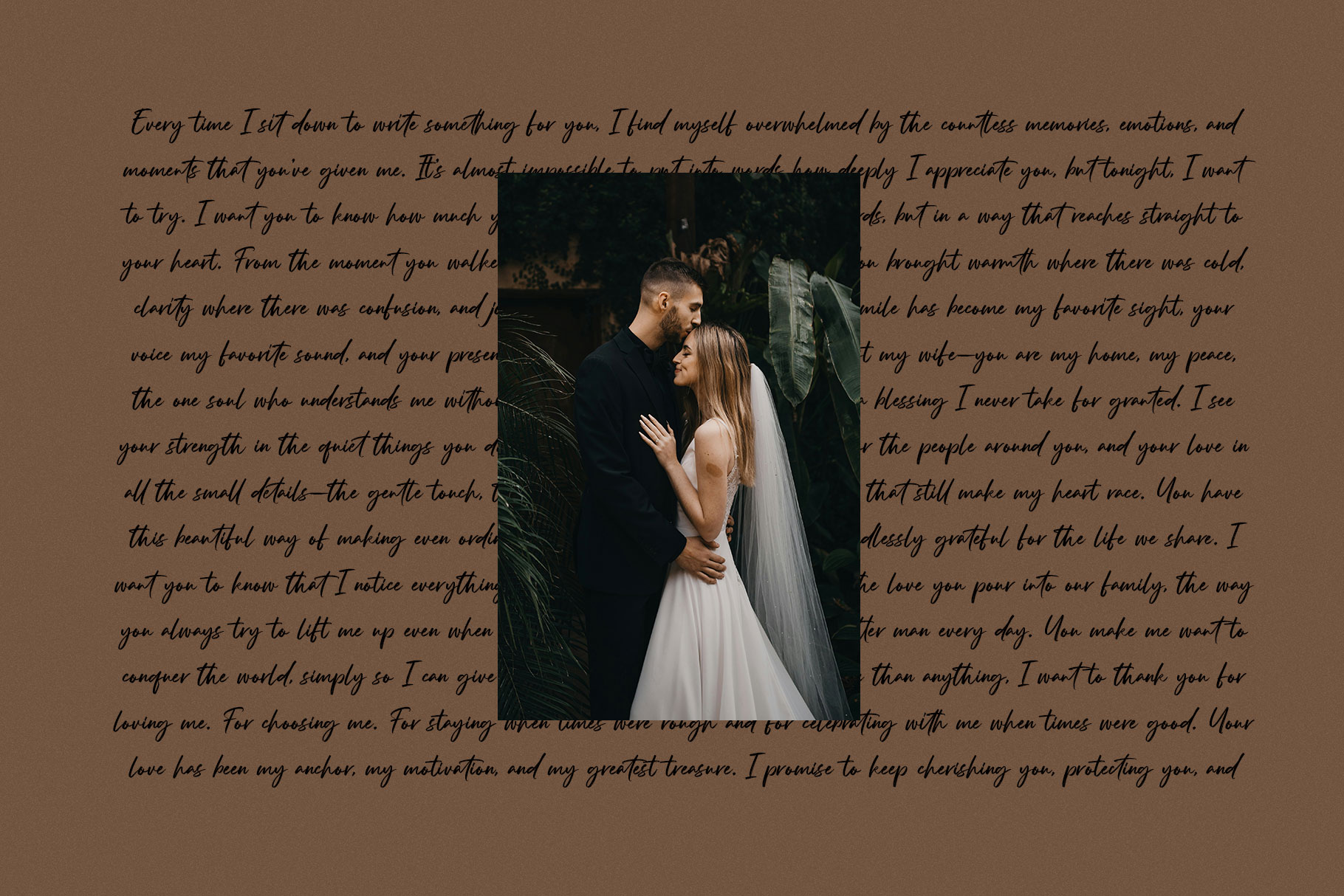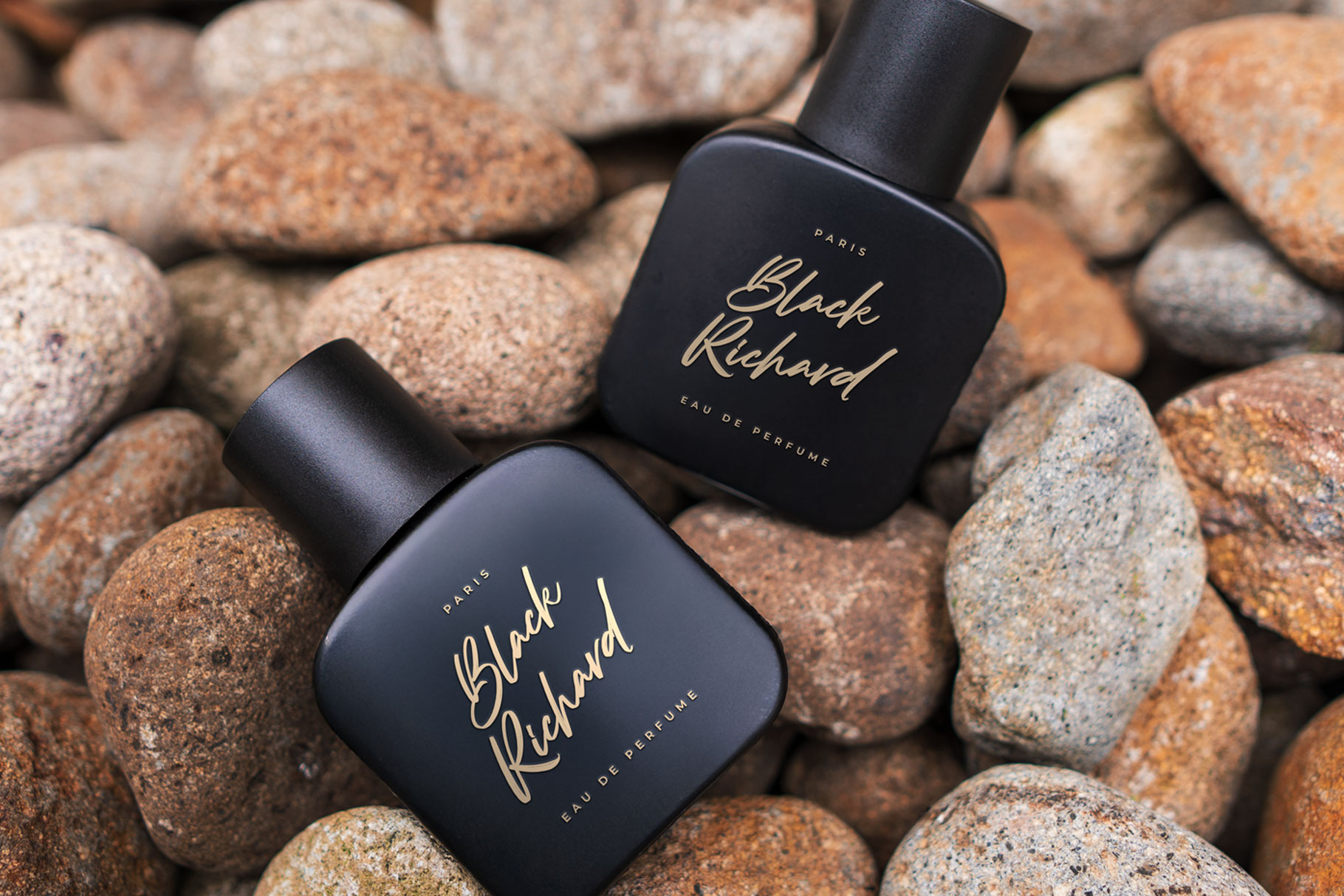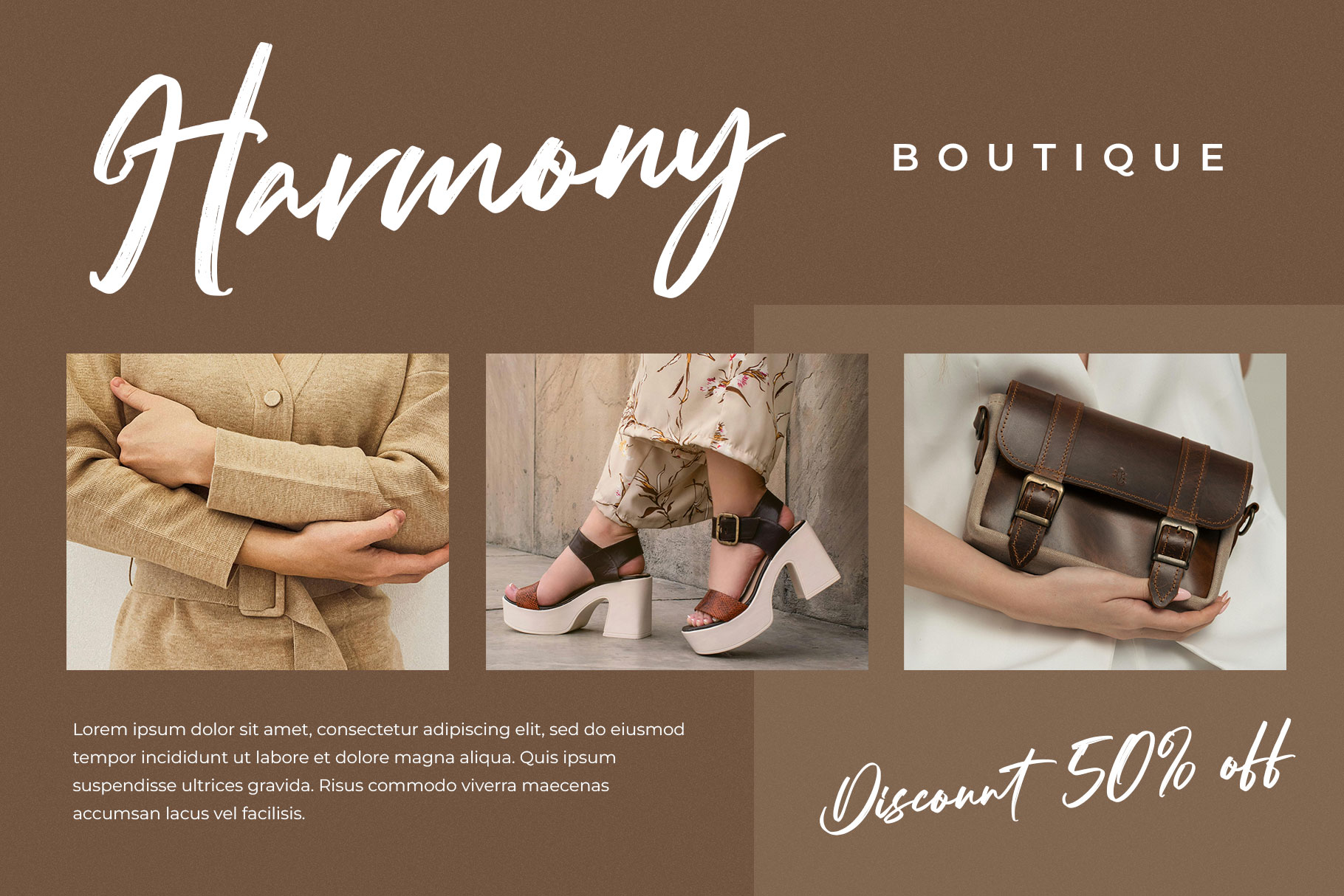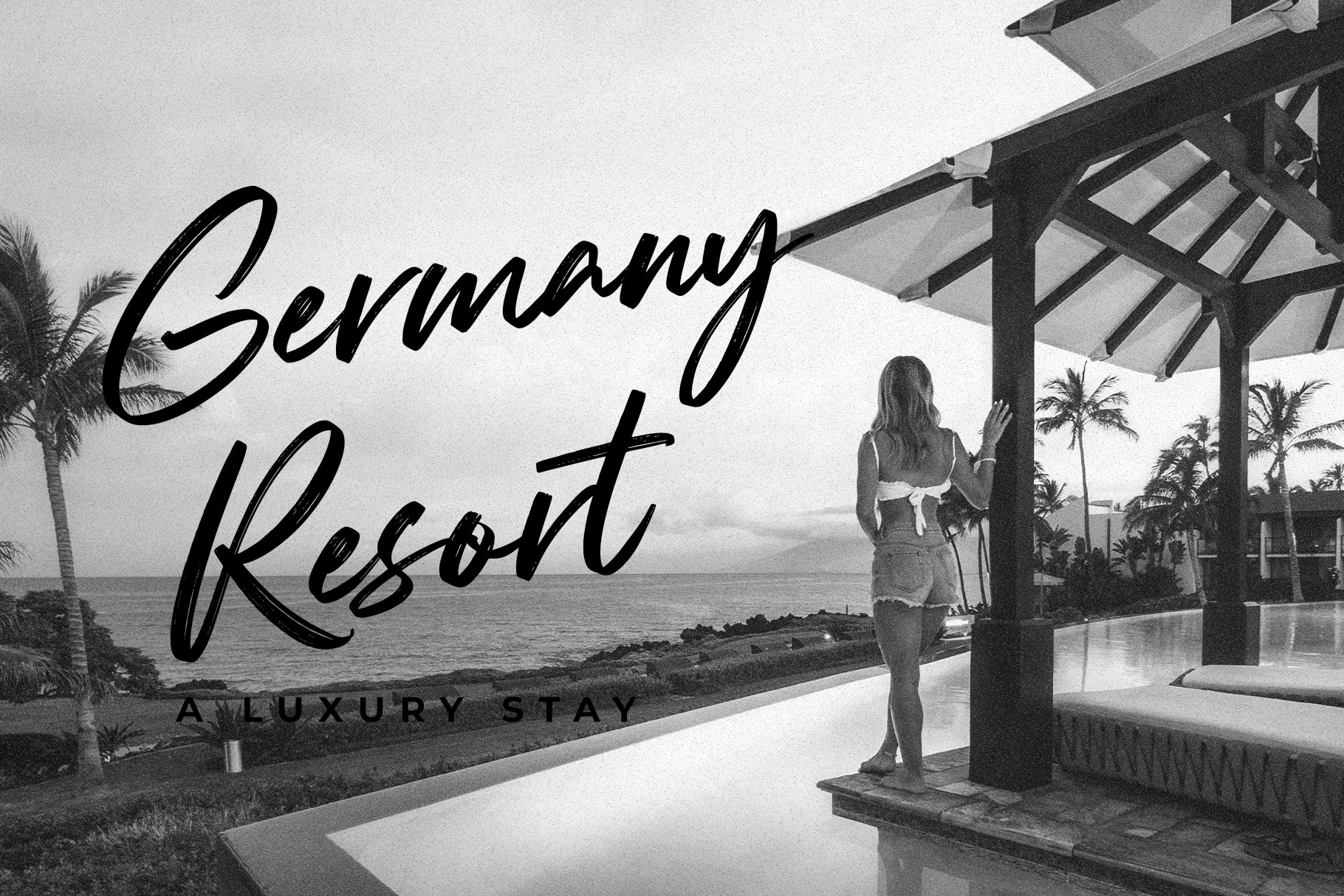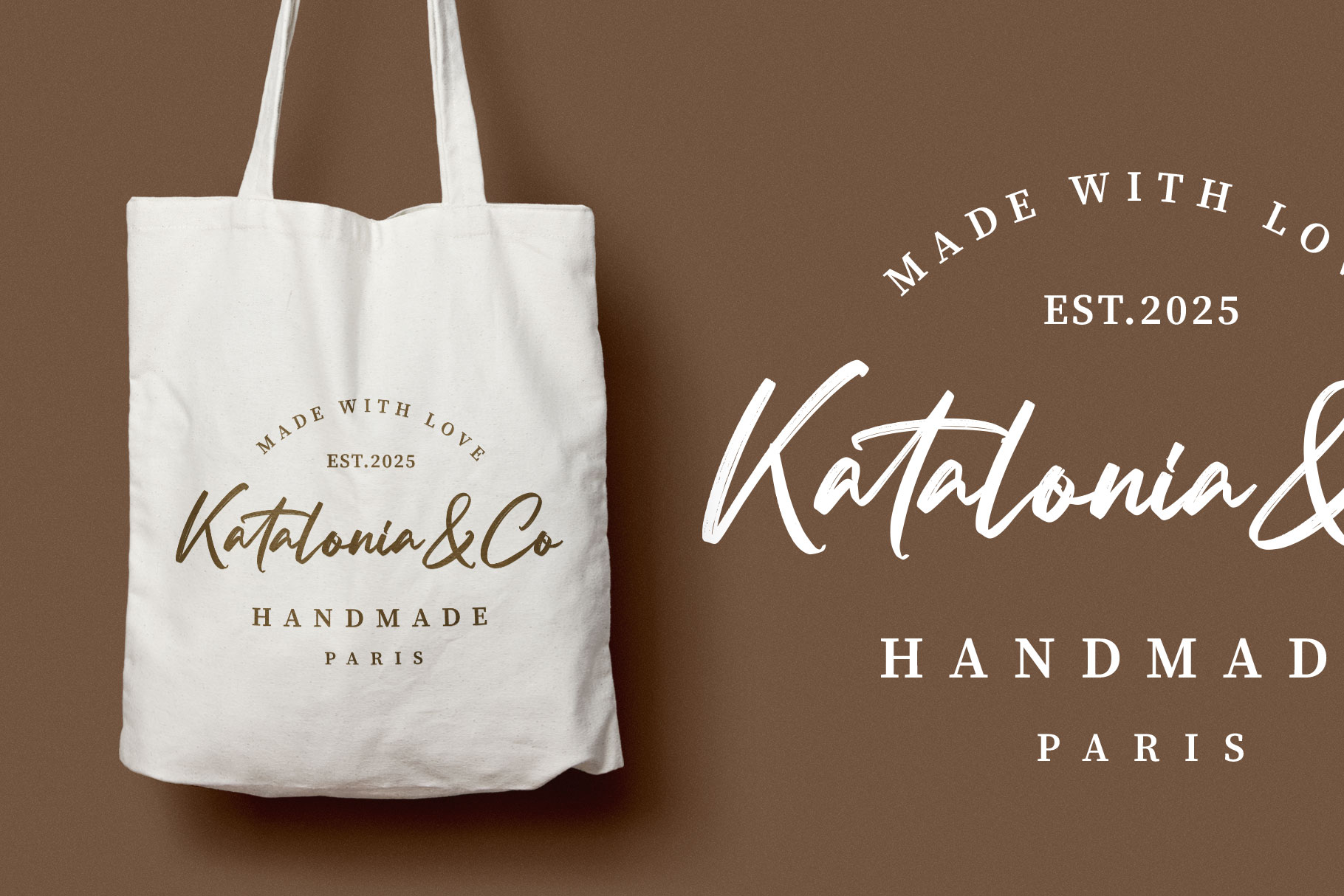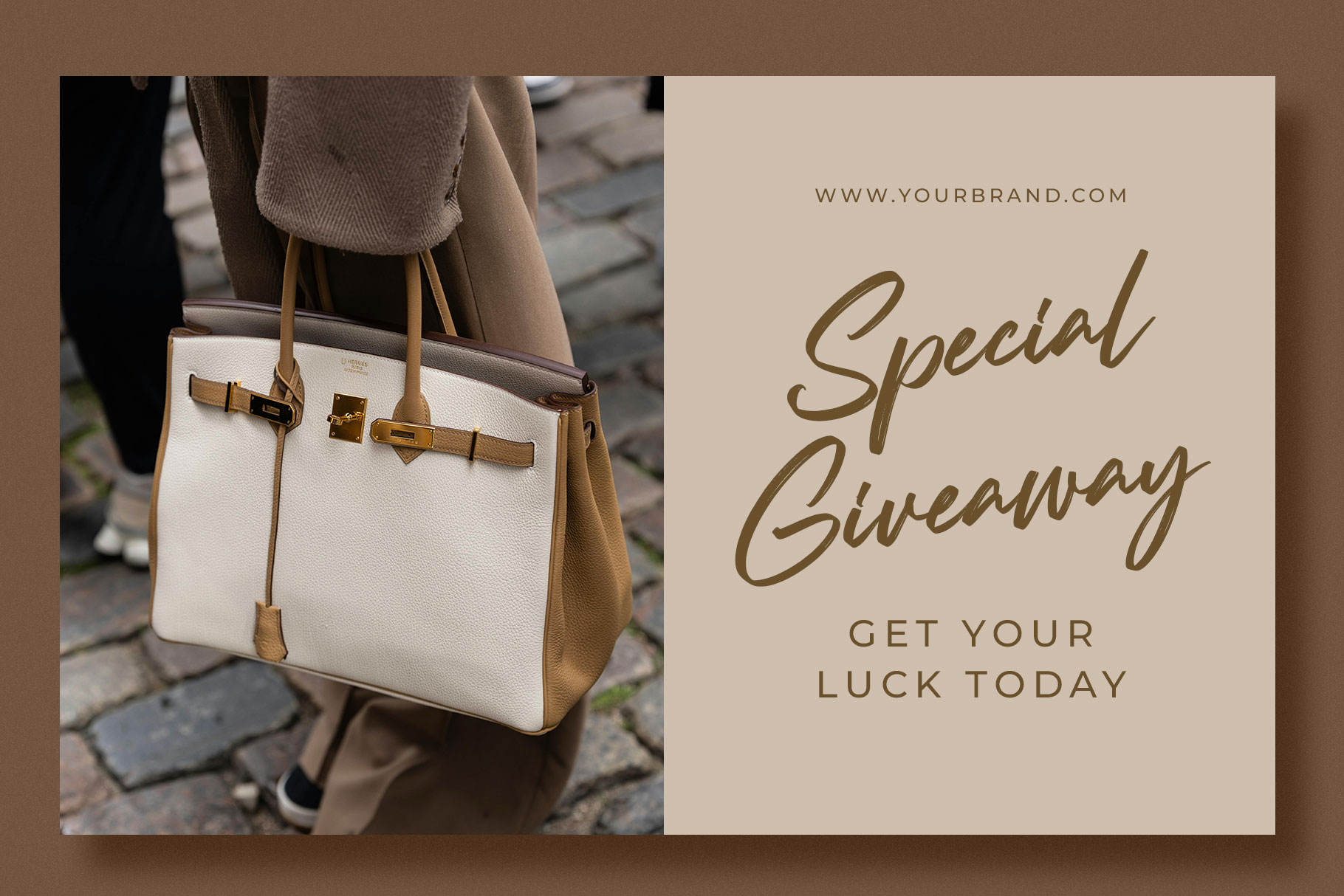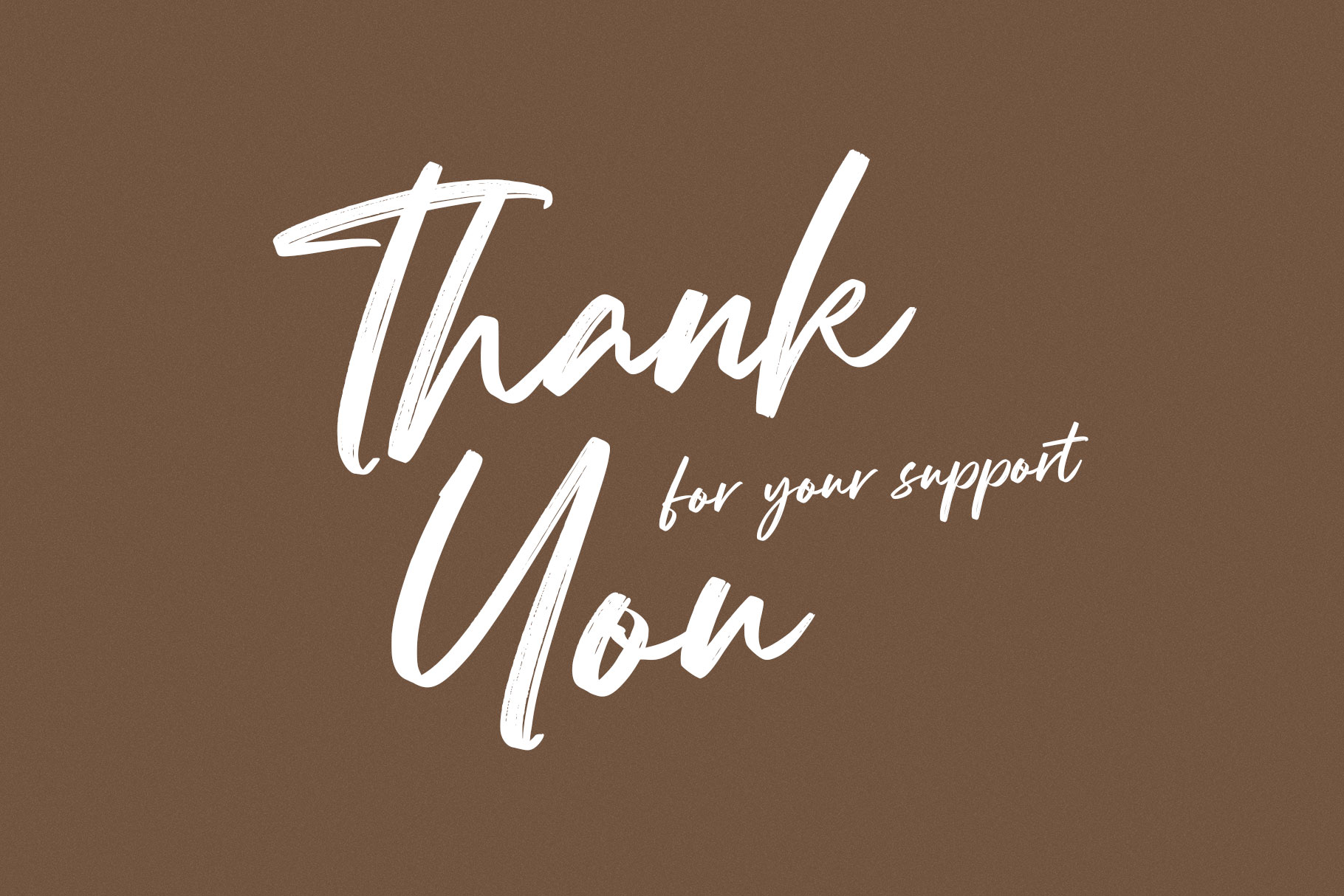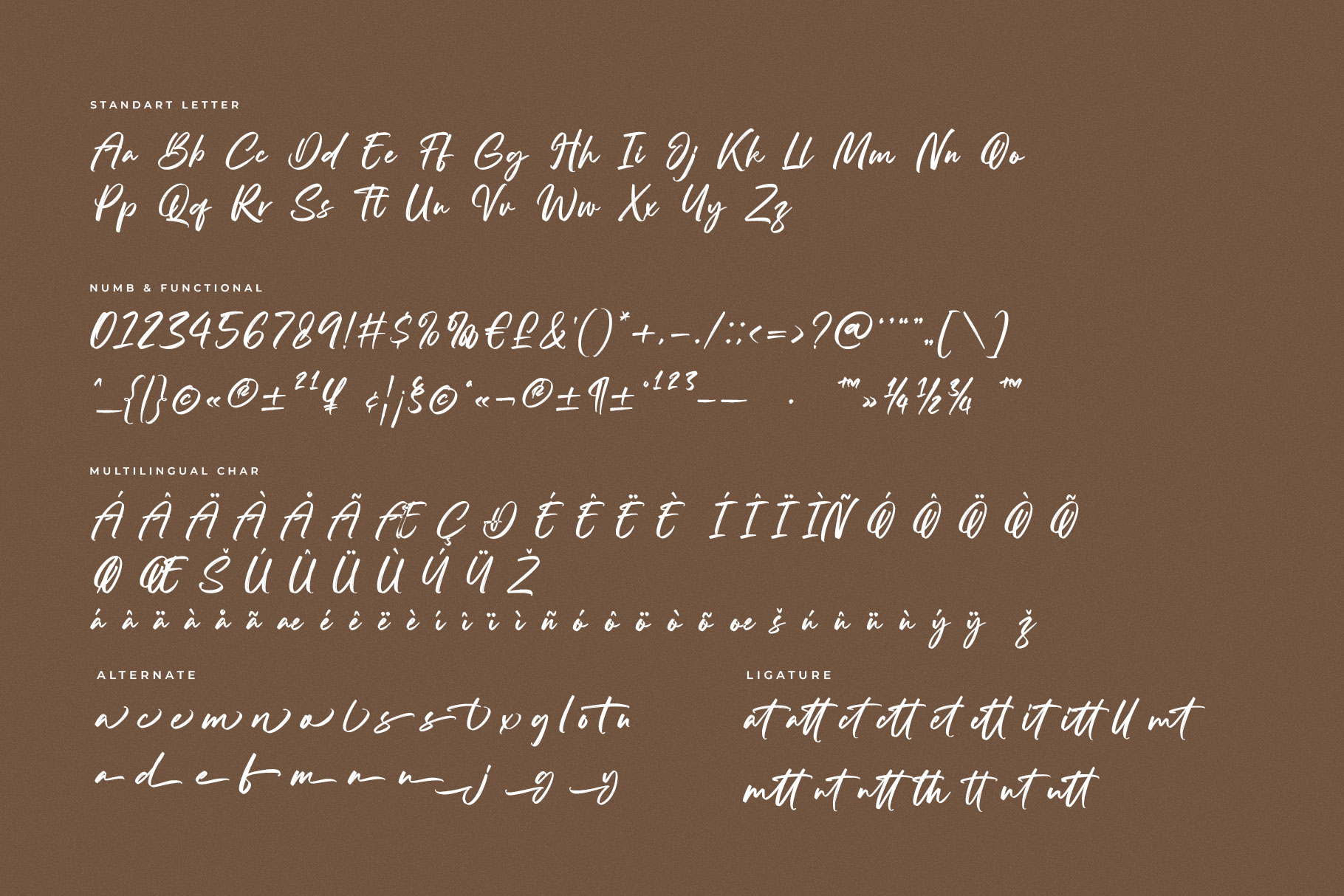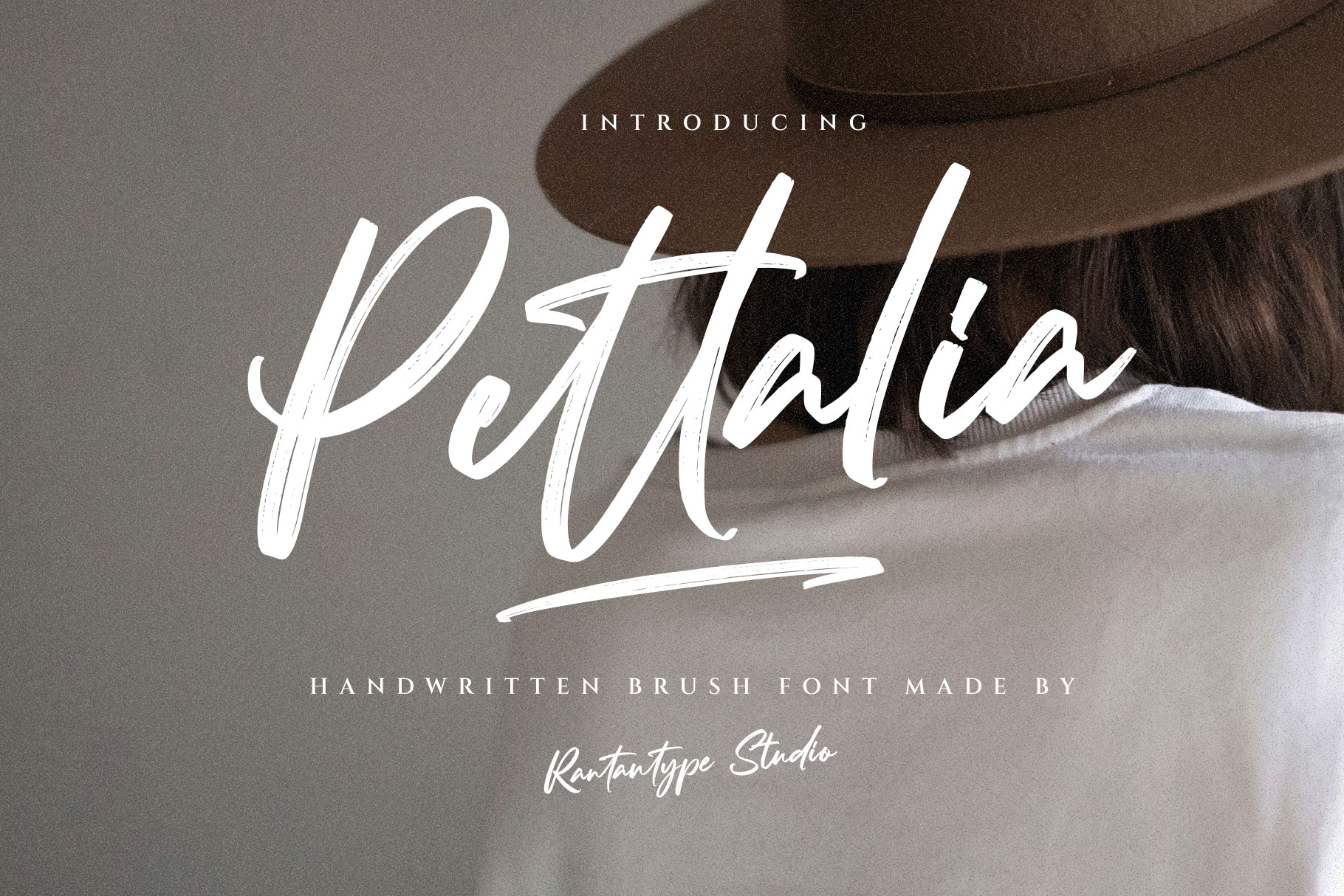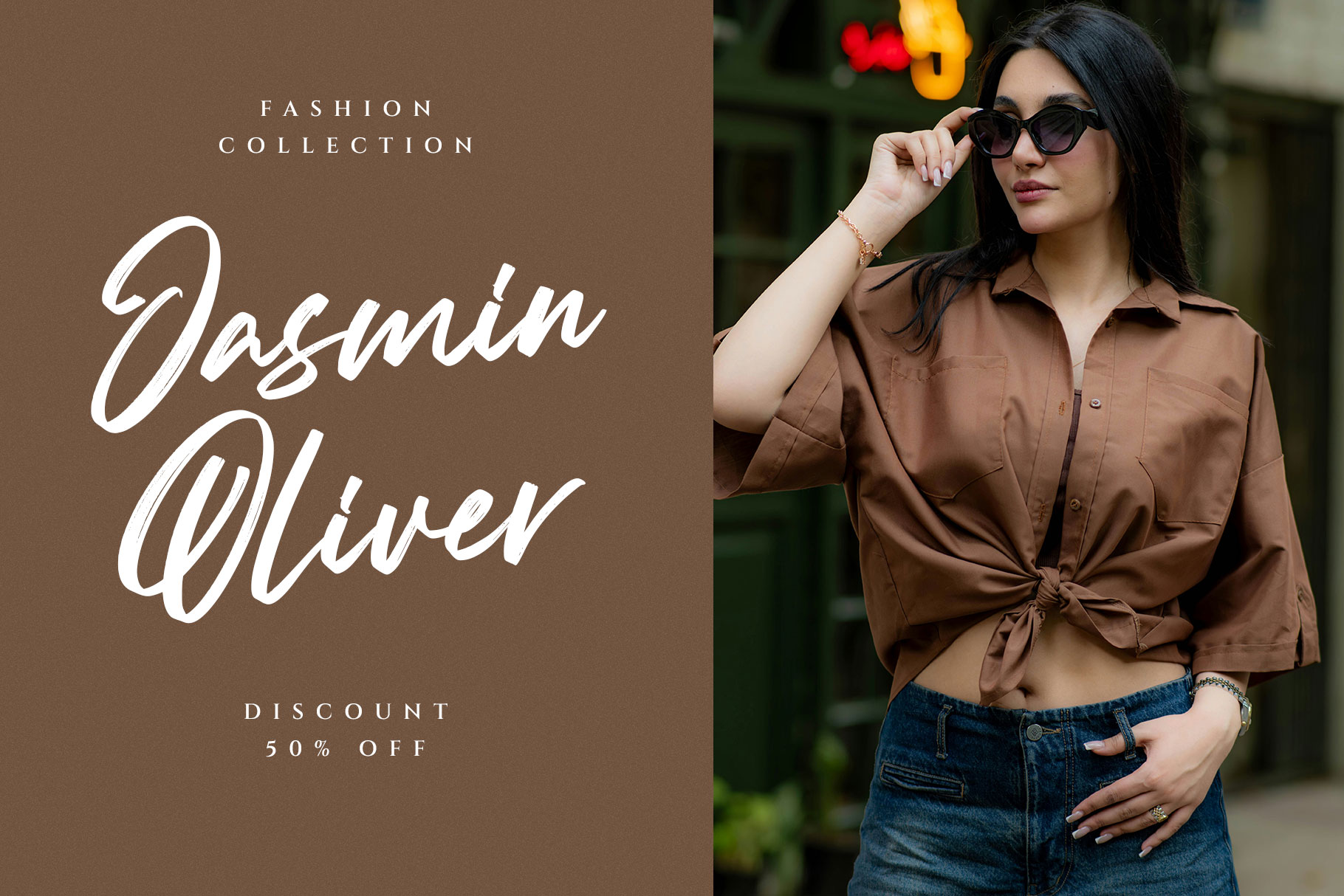
Pettalia Handwritten Brush Font
Pettalia is handwritten brush font made by Rantautype Studio. Pettalia come with natural strokes with sense of authenticity and expressive emotion. Pettalia is a perfectly choice for any creative endeavor, creating, modern, lifestyle design such as logotype, title, cover, branding, invitations, wedding designs, display and magazine, social media posts, advertisements, printed quotes, product packaging, corporate brand, product designs, labels, photography, watermarks, special events and any other project with elegant touch.